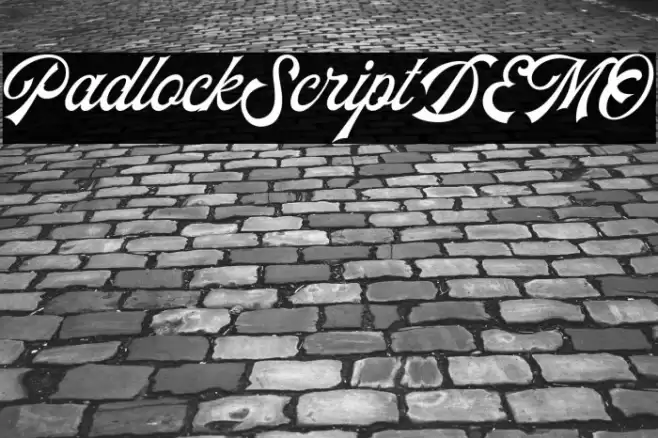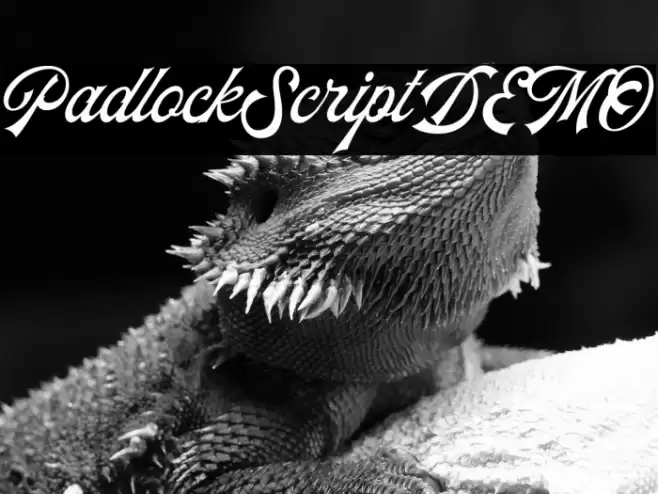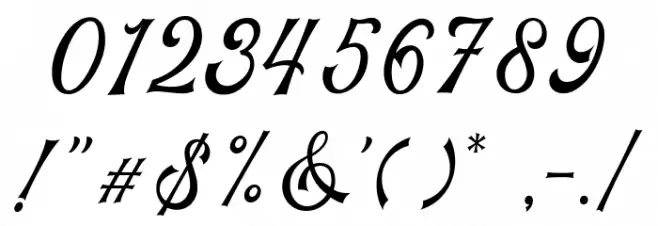
PadlockScriptDEMO Font
PadlockScriptDEMO Description
This font exudes a classic and elegant script style, characterized by its flowing, cursive letters that mimic traditional handwriting. The uppercase letters are bold and ornate, with dramatic flourishes and a sense of movement. The lowercase letters maintain a consistent flow, connecting smoothly in a way that enhances readability while preserving the decorative nature. The numerals are equally stylized, maintaining the script's overall aesthetic. Special characters are designed to complement the alphabet, ensuring a cohesive look across all text. This font is ideal for projects that require a touch of sophistication and elegance.
A classic, elegant script font with flowing, cursive letters and ornate flourishes from Regular fonts.
- Proposed Projects: Ideal for wedding invitations, elegant branding, greeting cards, and decorative signage.
- Overall Style: Classic
- Use Case: Logos, Headlines, Invitations